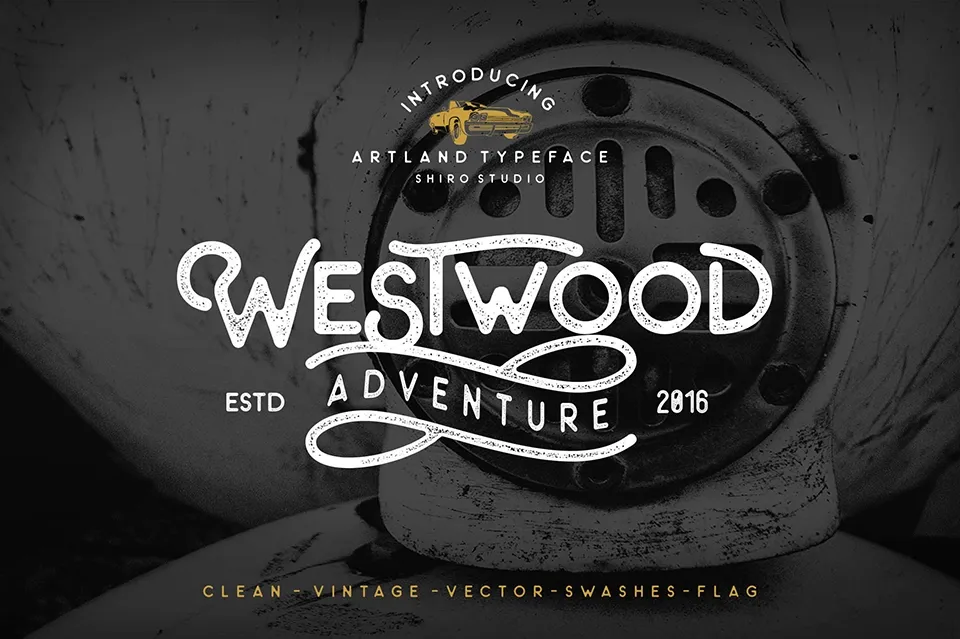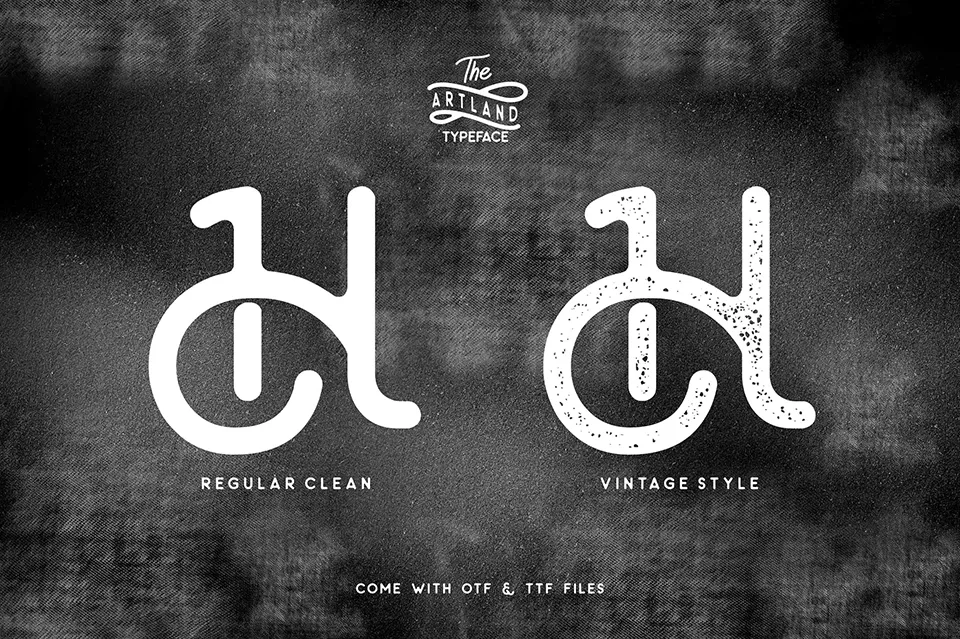
The Artland Typeface
The Artland Typeface is a stylish sans serif font family featuring both Regular Clean and Vintage Style versions. It is perfect for branding, posters, logos, and various creative artworks. The font package includes multiple styles, such as Artland Regular, Artland Vintage, and additional swash and wordflag fonts, offering endless possibilities for unique design combinations.